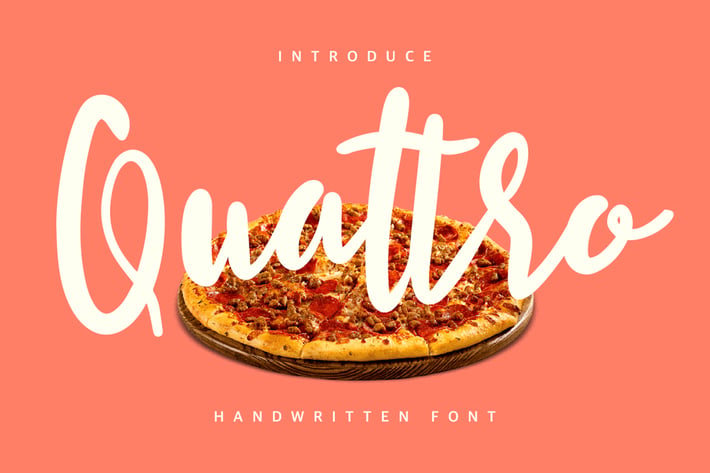
Quattro Typeface
Give your designs an authentic handcrafted feel. Quattro Typeface is perfectly suited to logo, stationery, branding, typography quotes, magazine or book cover, website header, clothing, branding, packaging design, restaurant and more. Includes Ligatures mm, ll, oo, tt, nn, ss